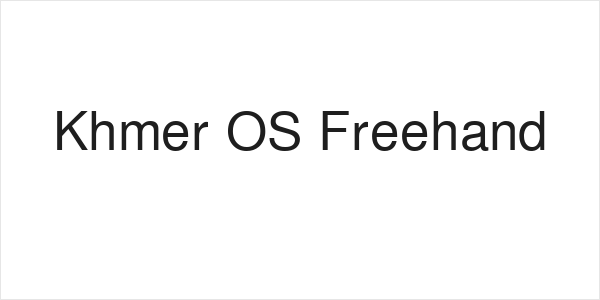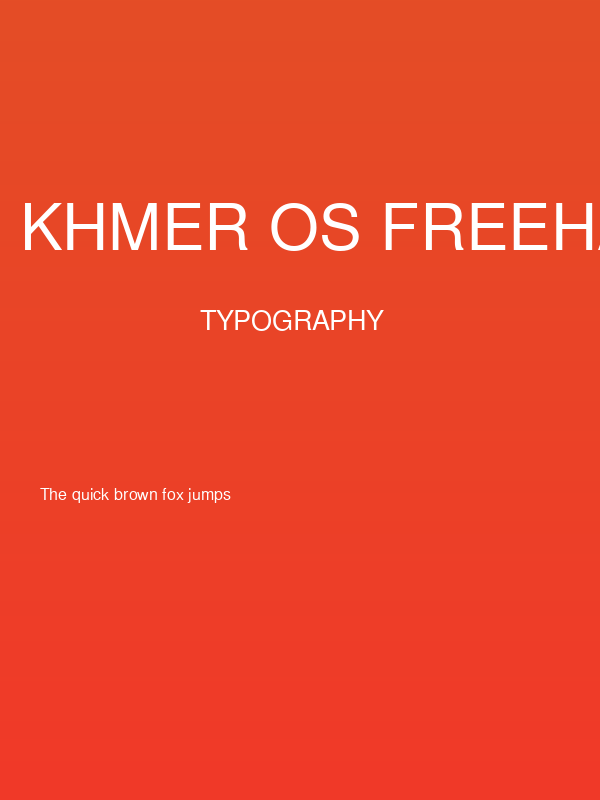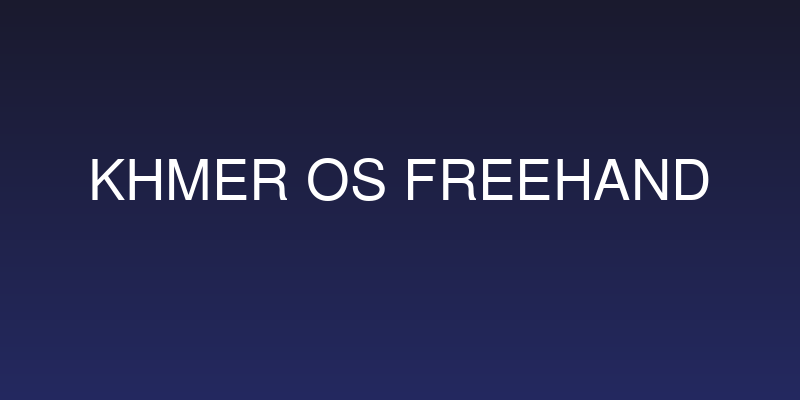
Khmer OS Freehand Font
Khmer OS Freehand Description
This font features a clean and straightforward design with a focus on readability and simplicity. The characters are evenly spaced, providing a balanced and harmonious look. The uppercase and lowercase letters maintain a consistent style, with smooth curves and straight lines that contribute to its modern appearance. The numerals are clear and distinct, making them easy to read. Special characters are well-integrated, ensuring versatility in various applications. Overall, this font exudes a professional and contemporary vibe, suitable for a wide range of design projects.